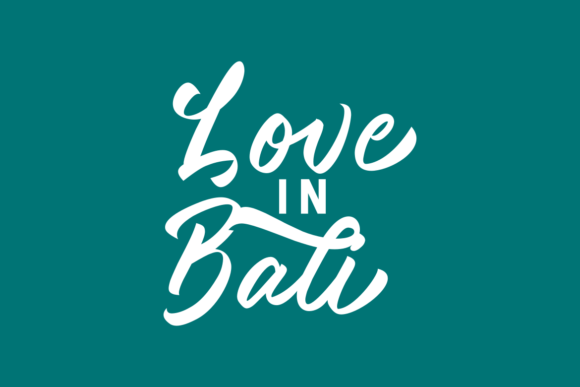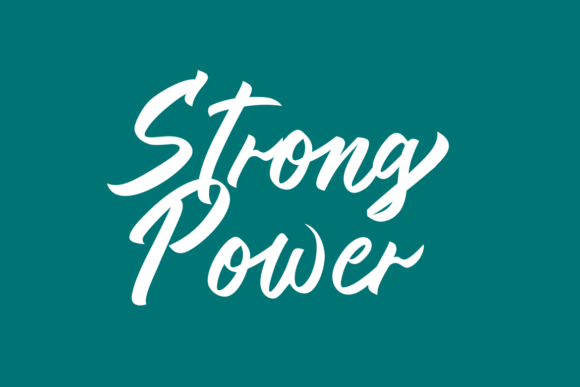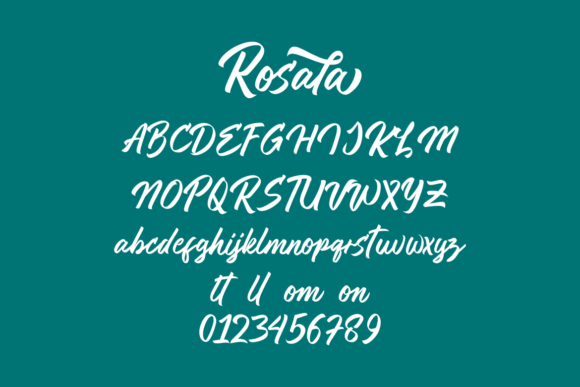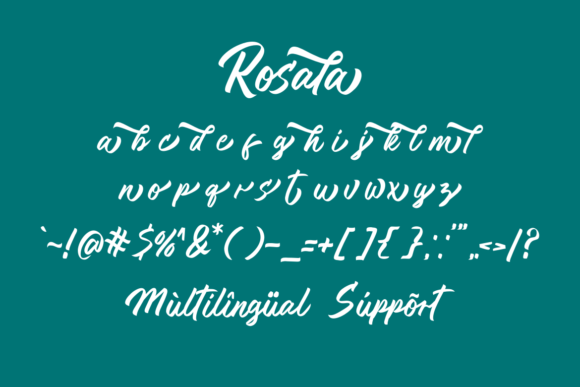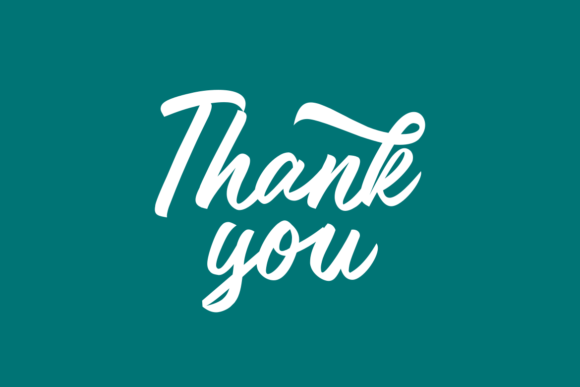
About Rosala Font
Certainly! Rosala is a handwriting font that encapsulates a captivating style, making it an excellent choice for a wide range of design projects. From logos to wedding invitations, Rosala brings a unique touch that adds a dash of elegance and charm.
Imagine using Rosala for your branding endeavors. Whether you’re creating a new logo or revamping your existing brand identity, this font’s distinctive handwriting style can breathe life into your visuals. Its fluid strokes and graceful curves convey a sense of authenticity, allowing your brand to connect with your audience on a deeper level.
Photography also benefits from Rosala’s artistic flair. Whether you’re watermarking your images or adding captions, this font complements the visual storytelling of your photographs. Its delicate yet confident appearance harmonizes with images, creating a cohesive and visually pleasing composition.
Invitations, especially for weddings, take on a refined and romantic air with Rosala. Imagine your wedding invitation adorned with this elegant font, setting the tone for your special day. Rosala’s timeless appeal captures the essence of love and celebration, making your invitations truly unforgettable.
When it comes to stationery, Rosala lends a touch of sophistication to your correspondence. Whether it’s thank you cards, letterheads, or note cards, this font adds a personal touch that makes your messages more memorable. Its versatility ensures that it can adapt to various stationery designs, from classic to contemporary.
Labels and packaging also benefit from Rosala’s unique charm. Whether you’re creating labels for products or packaging for a special event, this font adds an element of handmade elegance. It conveys a sense of care and attention to detail that resonates with your audience.
The PUA encoding of Rosala adds an extra layer of convenience. Accessing a variety of glyphs and swashes becomes a breeze, allowing you to customize and embellish your designs with ease. This feature enhances the font’s versatility and empowers you to experiment with different stylistic elements.
Ultimately, Rosala is a font that transcends the ordinary, adding a touch of artistry to your projects. Its combination of style, elegance, and accessibility makes it suitable for a wide array of design contexts. So whether you’re crafting a logo, creating invitations, or enhancing your branding materials, Rosala is the font that can bring your creative vision to life in a truly captivating way.